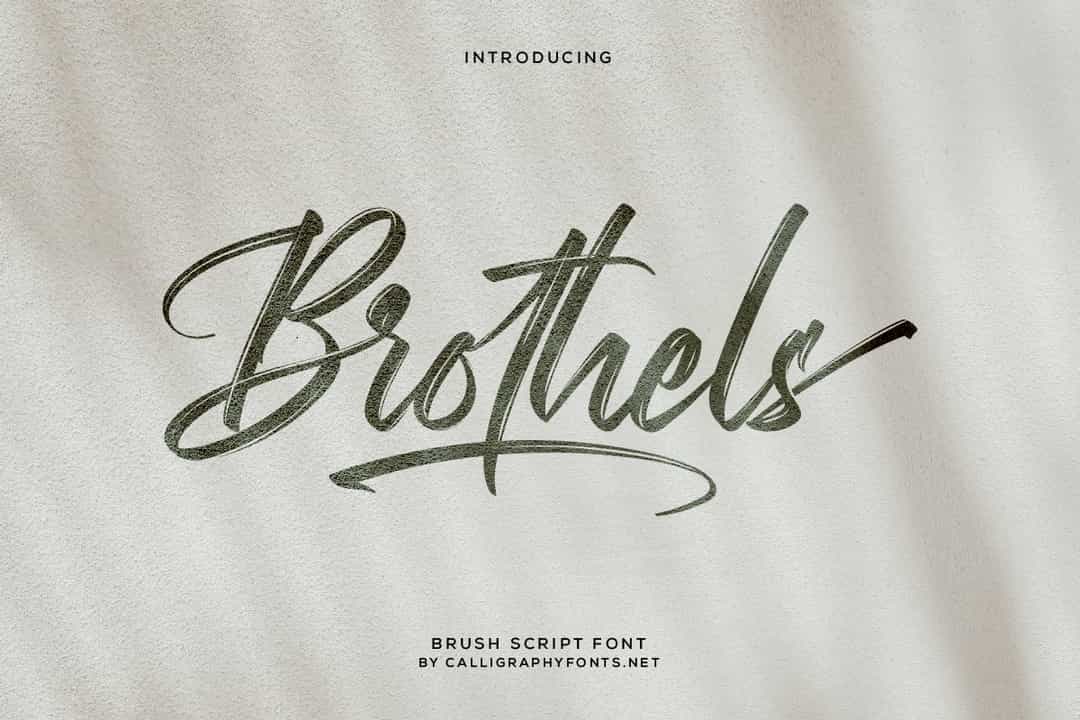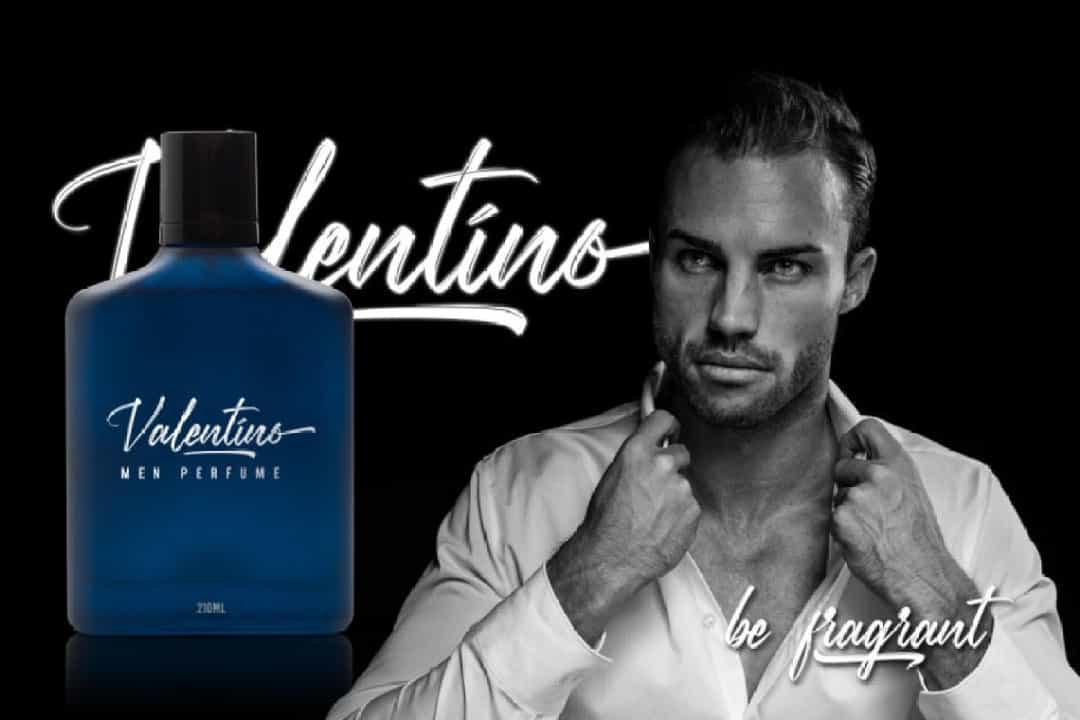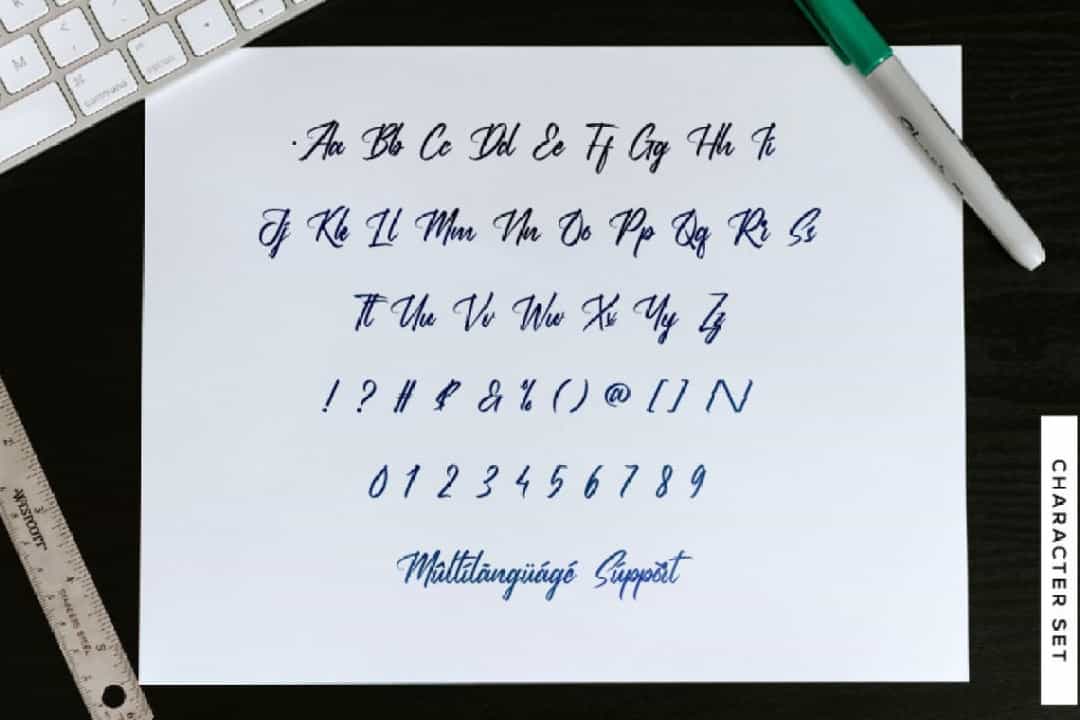
Brothels is kind of a script font with textured look to it. This beautiful script will catch everyone’s attention due to the classic and traditional approach in the design of this font, alongside the wonderful handwritten scripts with a royal touch.